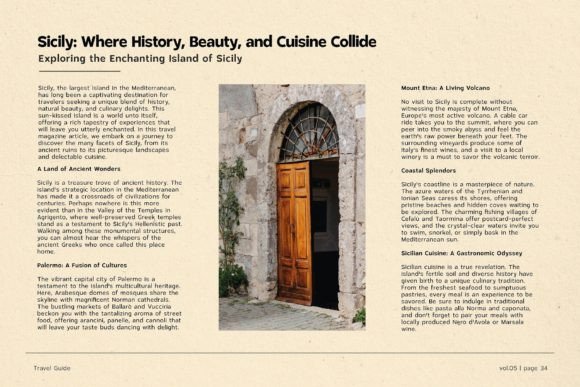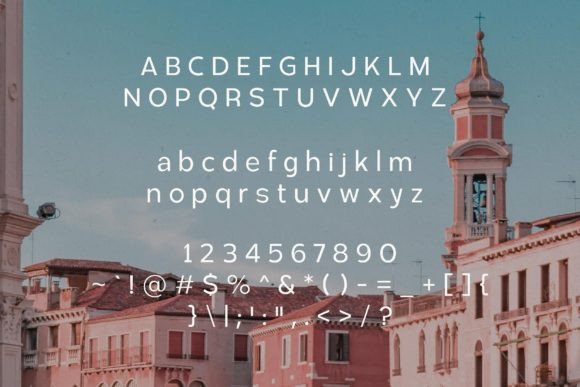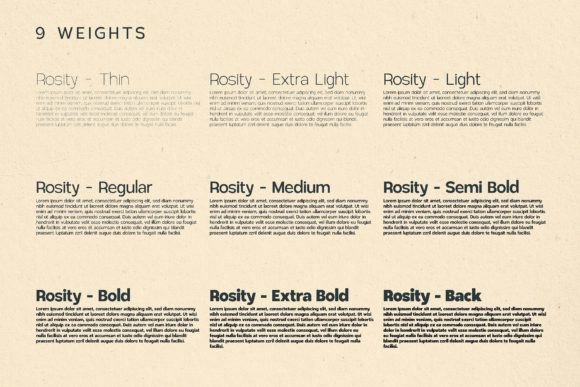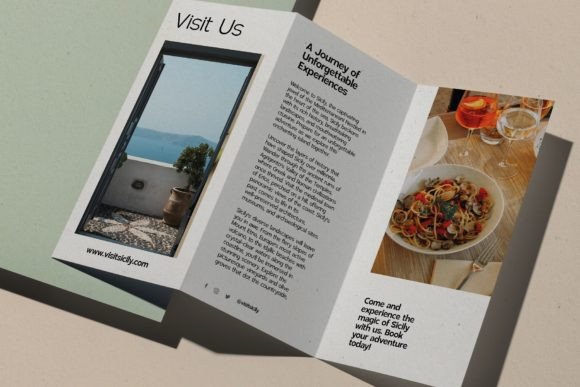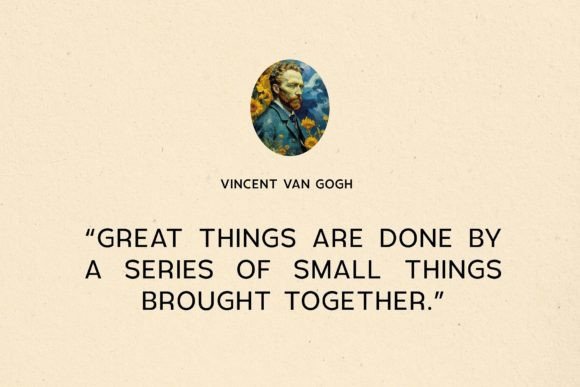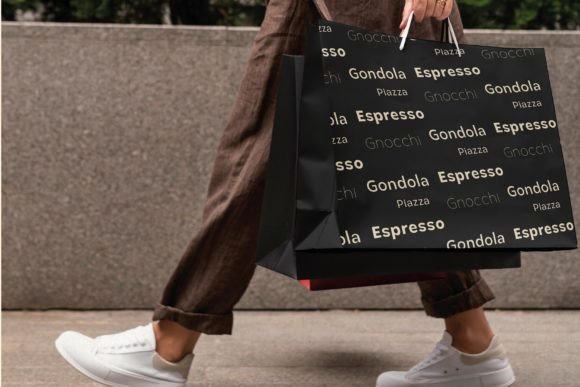
Introduction to Rosity Font
Have you ever stared at a blank page, staring at the cursor, waiting for inspiration to strike? The blank canvas of a new design project can be daunting, but what if you had the perfect tool to elevate your work and bring your vision to life? For designers, finding the right font can be a game-changer, and that’s where the Rosity Font comes in.
As a versatile and sophisticated typeface, the Rosity Font is a valuable addition to any design resource. With its sleek lines, elegant curves, and high-quality design, it’s the perfect choice for designers looking to create stunning visuals for their creative projects. Whether you’re working on a corporate logo, marketing materials, or a website, the Rosity Font is sure to impress with its timeless charm.
Rosity Font
- Includes a comprehensive character set, covering a wide range of languages and special characters.
- Perfect for use in various design projects, from logos and branding to digital products and print materials.
Honest Review: Rosity Font
- What works well: ✨ The Rosity Font has a unique and stylish design that’s perfect for modern creative projects. It’s also incredibly versatile, making it suitable for a wide range of applications, from logos to headings.
However, I did encounter a few limitations during my use of the Rosity Font. ⚠️ The font could benefit from more comprehensive documentation, making it easier for designers to get the most out of it.
Overall, I’m impressed with the Rosity Font. Its high-quality design and versatility make it a valuable asset for any design project. While it may not be perfect, it’s definitely worth considering for your next creative project.
Rosity Font
The Rosity Font is a versatile and high-quality design resource perfect for any creative project. Its clean and modern design makes it an ideal choice for various applications.
The Rosity Font is perfect for various creative projects, including logos, business cards, brochures, and presentations. Its clean design and high quality make it an ideal choice for any project that requires a professional look.